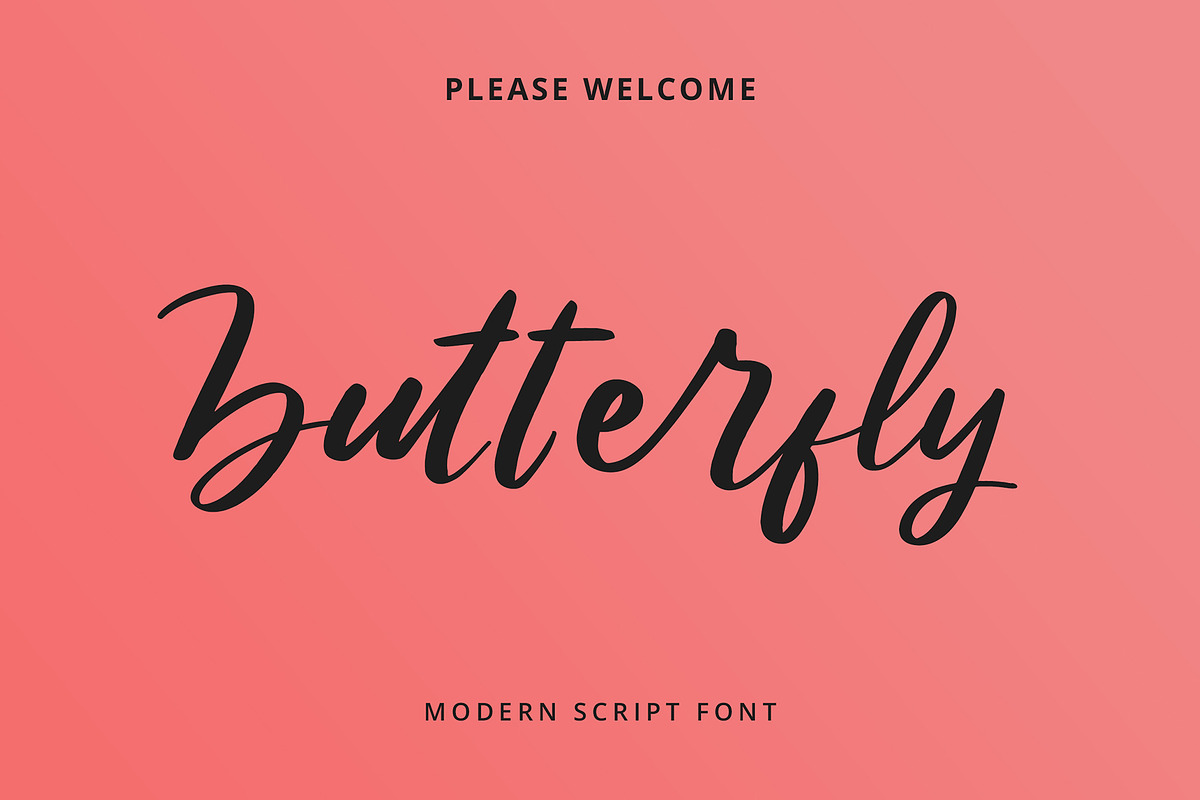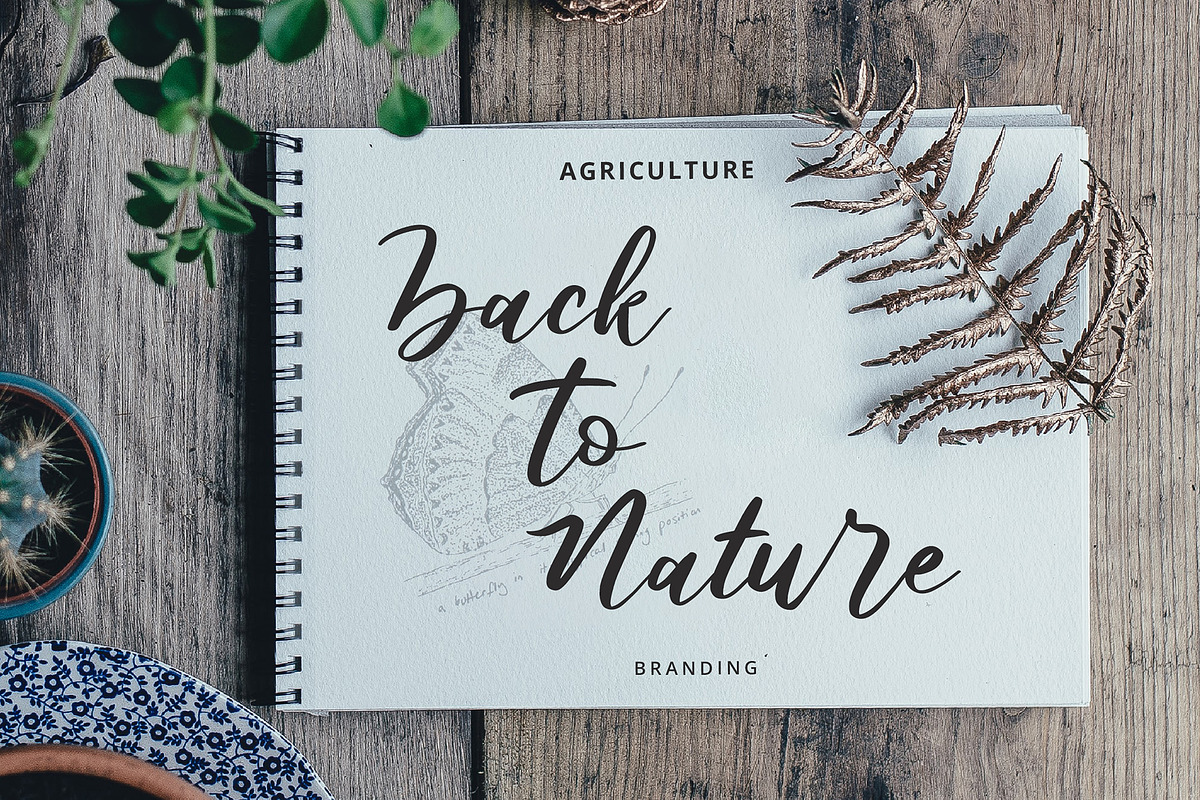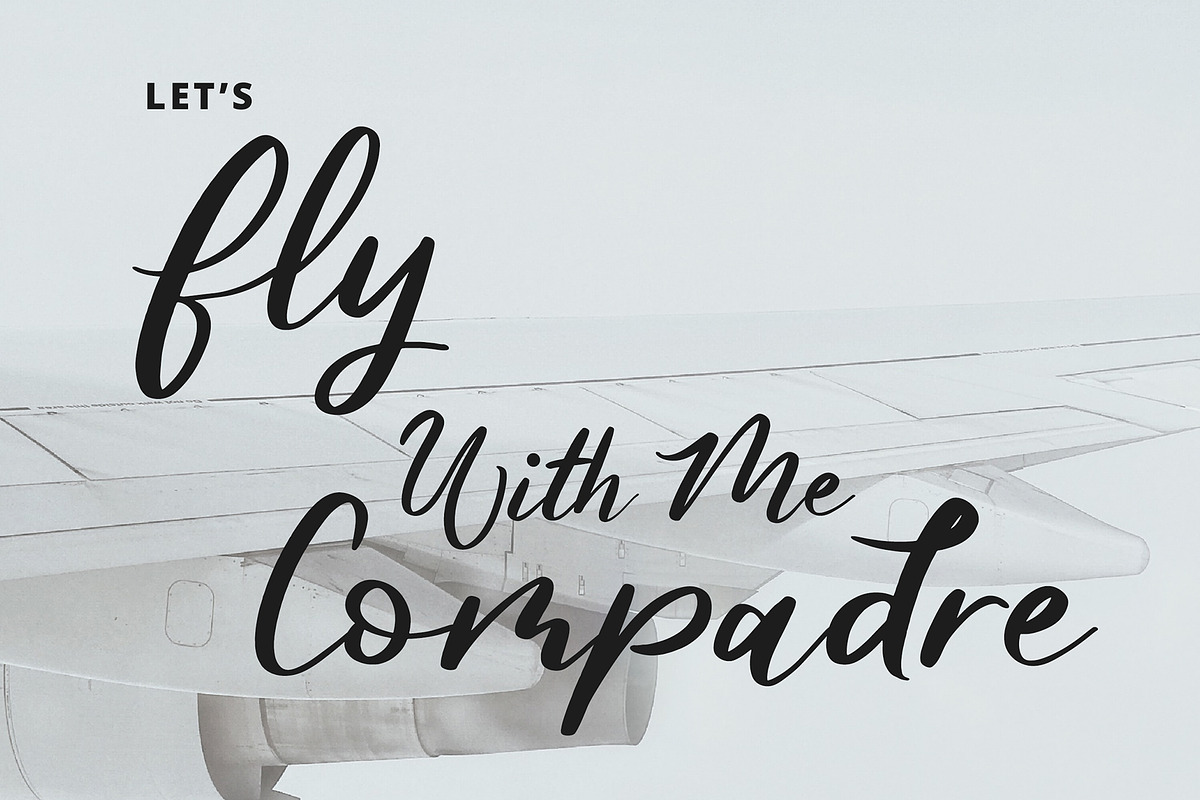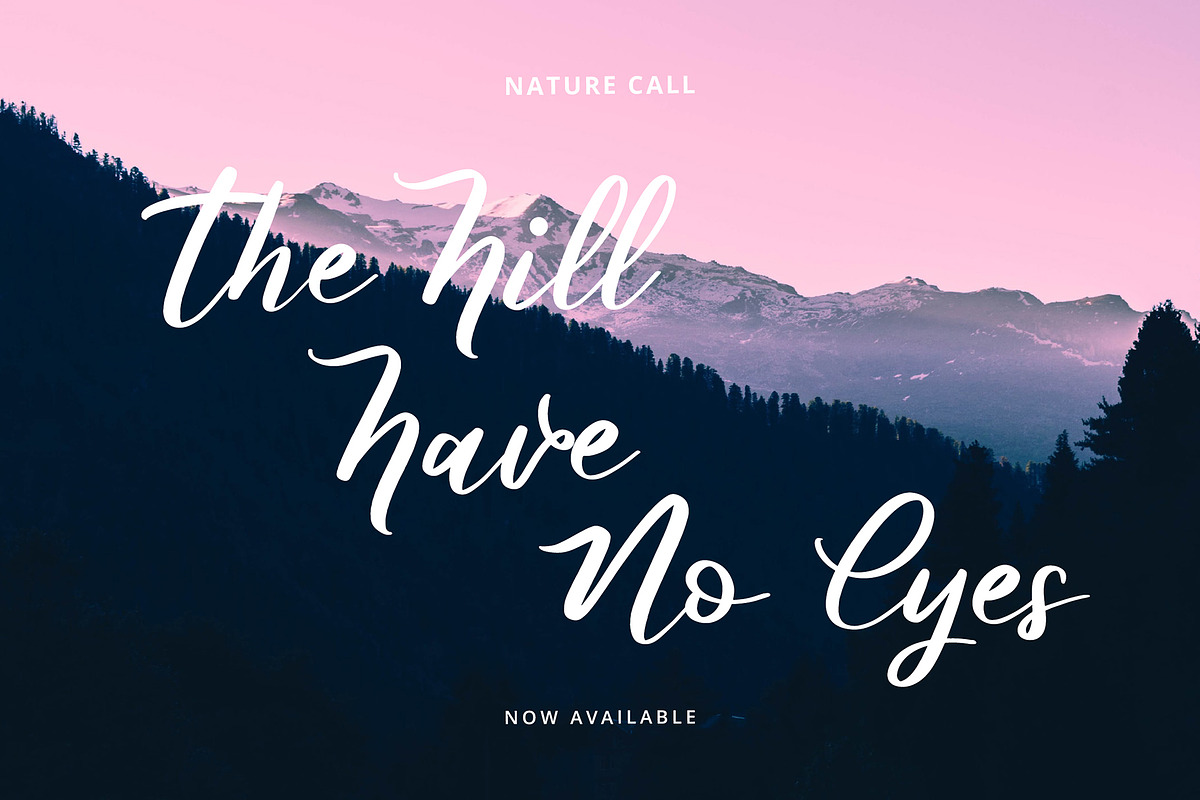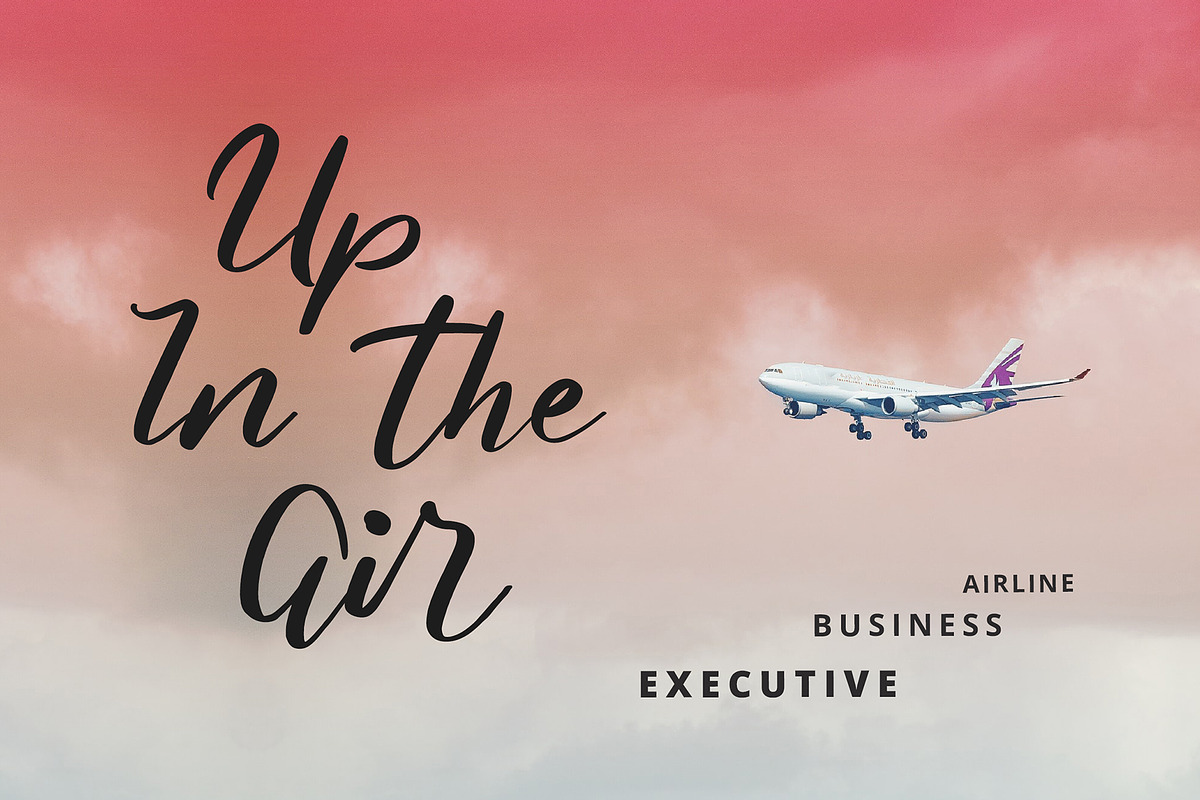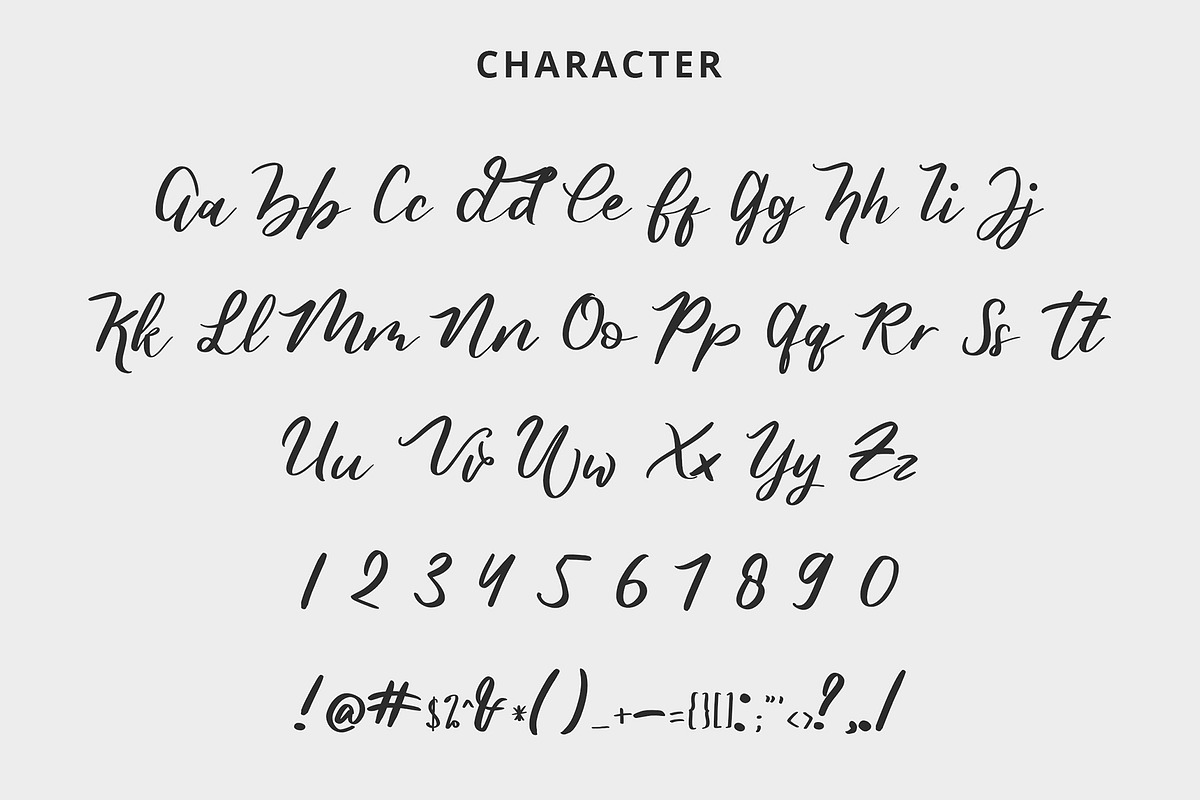
Butterfly Modern Script Font
Butterfly is a Modern Script font. It has an elegant touch which is perfect for Instagram stories, natural products, branding, and much more!
Butterfly is perfect for branding projects, logo, wedding designs, social media posts, advertisements, product packaging, tshirt design, product designs, label, photography, watermark, invitation, stationery and any projects.
Butterfly Modern Script Font by Giant Design fits naturally into Branding, posters, packaging, typography.